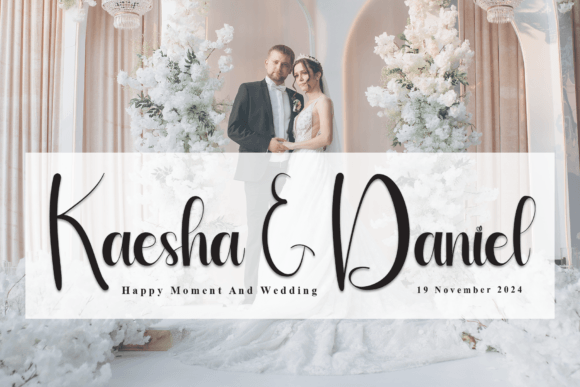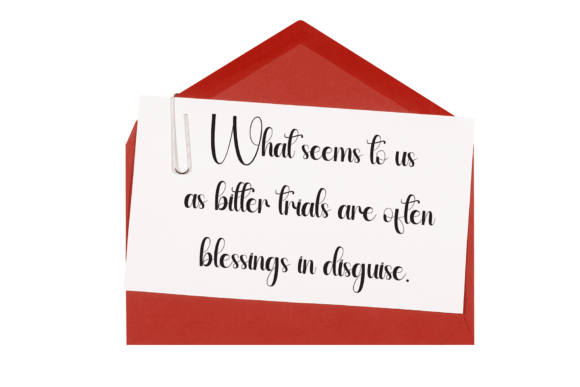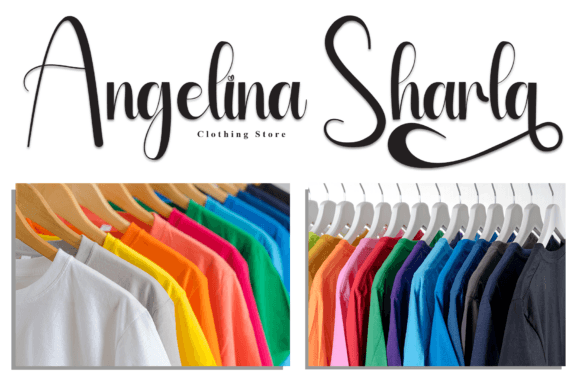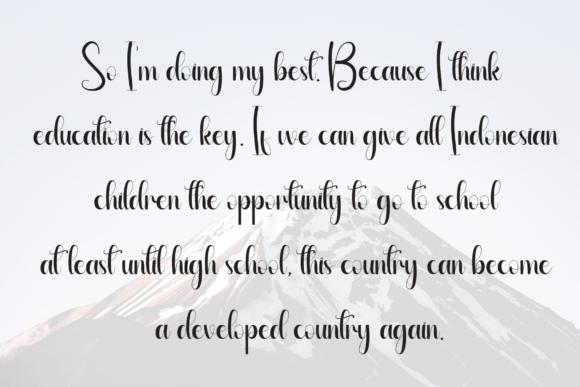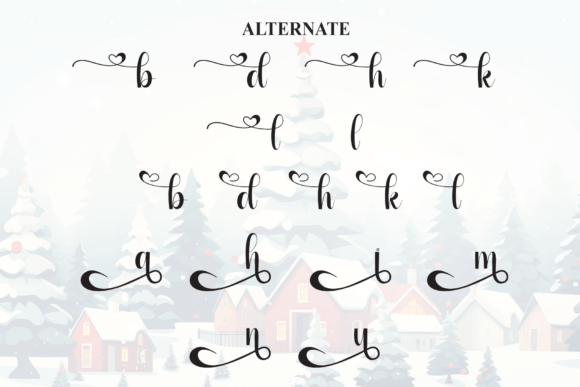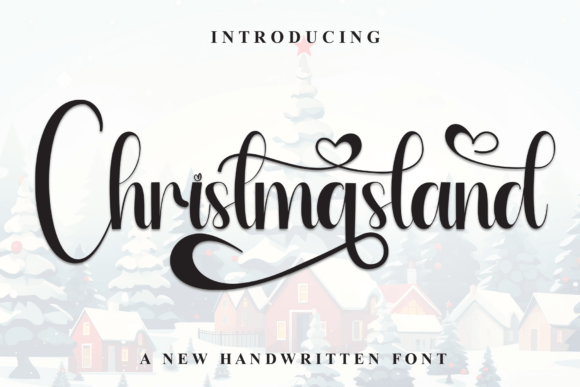
Christmasland Font: The Ultimate Display Font for Whimsical Designs
Are you looking for a font that can add a touch of magic to your designs? Look no further than Christmasland Font, a charming handwritten display font that exudes sweetness and friendliness. This delightful font is perfect for designers and crafters who want to create whimsical and playful designs that capture the imagination.
The Charm of Christmasland Font
Christmasland Font is a unique and versatile font that is designed to evoke a sense of joy and wonder. Its endearing and fun appeal makes it the perfect choice for personalizing wedding invitations, crafting heartwarming cards, or infusing a playful touch into any design project. With its whimsical and charming allure, this font is sure to transform your mundane texts into captivating letter art.
Whether you’re a designer or crafter, Christmasland Font is the perfect addition to your toolkit. This font is specially designed to make your designs stand out with a fun twist, and its versatility ensures that it can be used for a wide range of projects. From wedding invitations and greeting cards to social media graphics and blog posts, Christmasland Font is the perfect choice for anyone who wants to add a touch of personality to their designs.
Key Features of Christmasland Font
- Handwritten display font: Christmasland Font is a handwritten display font that exudes sweetness and friendliness.
- Whimsical and playful: This font is designed to evoke a sense of whimsical joy and playfulness.
- Versatile: Christmasland Font can be used for a wide range of projects, from wedding invitations and greeting cards to social media graphics and blog posts.
Tips and Tricks for Using Christmasland Font
- Experiment with different colors: Christmasland Font looks great in a wide range of colors, so don’t be afraid to experiment and find the perfect color for your design.
- Use it with other fonts: Christmasland Font can be paired with other fonts to create a unique and interesting design.
- Play with font sizes: Experiment with different font sizes to create visual interest and add depth to your design.
Christmasland Font is a charming and versatile handwritten display font that is perfect for designers and crafters who want to add a touch of whimsy and playfulness to their designs. With its endearing and fun appeal, this font is sure to transform your mundane texts into captivating letter art. Whether you’re creating wedding invitations, greeting cards, or social media graphics, Christmasland Font is the perfect choice. So why wait? Download Christmasland Font today and unleash your creativity!